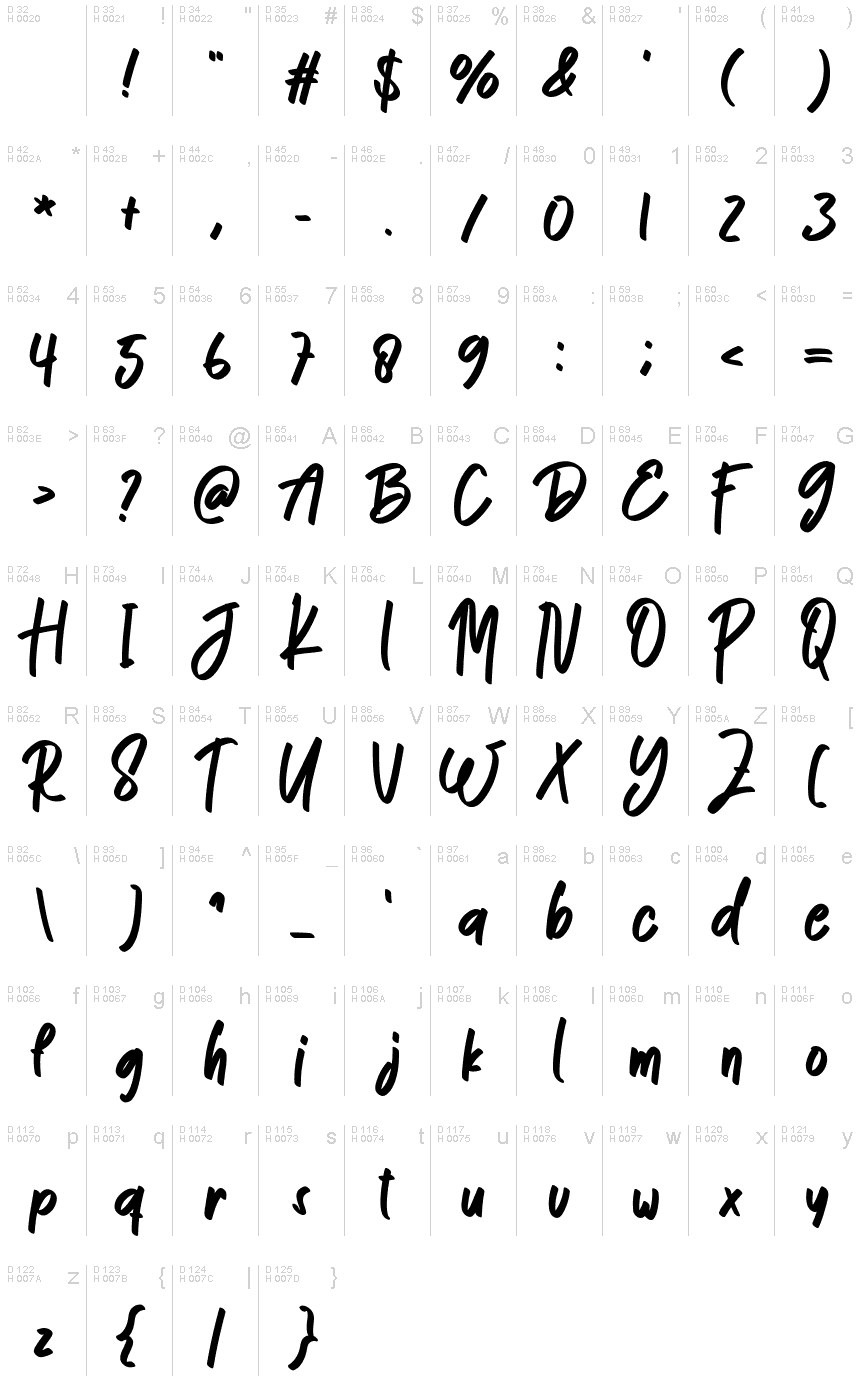
Comeback Signature
Comeback Signature font is an inspiring signature typeface designed by Micro Andi.
the latest style letters are perfect for wall displays, wedding invitations, social media post logos,
advertisements, product packaging, product designs, labels, photography, watermarks, invitations, stationery,
and any project that requires taste handwriting.